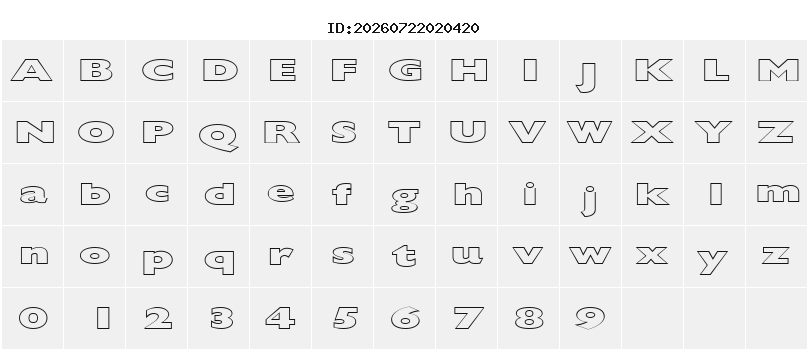
FZ BASIC 57 HOLLOW EX Preview
• Font Name: FZ BASIC 57 HOLLOW EX
• Full Font Name: FZ BASIC 57 HOLLOW EX
About FZ BASIC 57 HOLLOW EX.ttf
FZ BASIC 57 HOLLOW EX.ttf is a modern, elegant sans-serif font designed for ultimate readability and visual harmony. Perfect for branding, headlines, web design, and print materials.